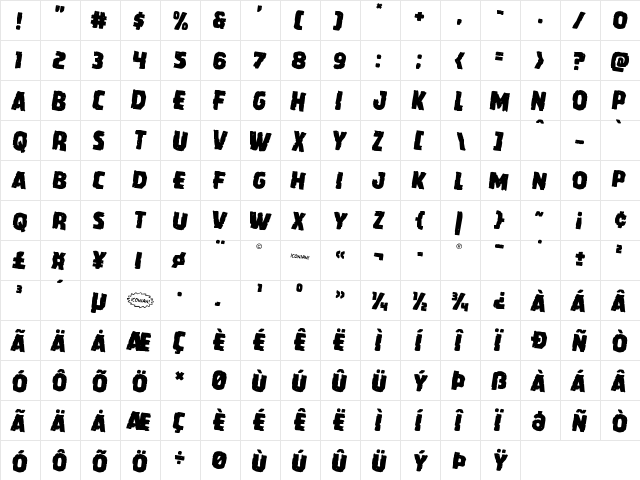
Howlin' Mad Rotated 2 Regular
Design Context for Howlin' Mad Rotated 2 Typeface
Howlin' Mad Rotated 2 is a composed and adaptable typeface that performs quietly and consistently across a wide range of design contexts.
Pro Tip: Use Howlin' Mad Rotated 2 in both headline and body roles to test its range before committing to a single application.